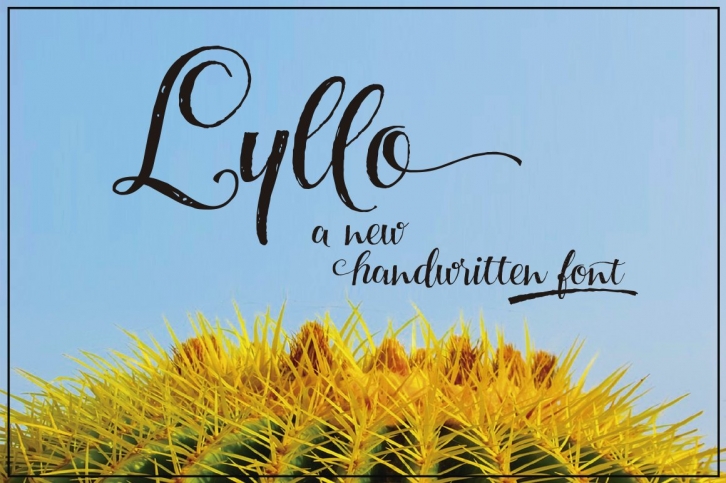
Lyllo Font Download
Design: Carine de Wandeleer
Hello! Meet Lyllo, a casual script with a huge personality and a bouncy baseline. Each glyph was drawn by hand with a calligraphy pen for later, to be digitized with great precision, carefully guarding the authentic look. It is perfect if you want to convey individuality and style. Lyllo has 745 glyphs: a lot of ligatures that help to sustain the natural flow of handwriting, swashes, finishes, initial shapes and a lot of alternatives for a realistic look with handwriting and for you to give a personalized flare to your designs. Lyllo also offers many catchwords and adornments that complement the charm and uniqueness of the font. To activate the optional glyphs you may click on buttons in any OpenType savvy program or manually choose the characters from Glyph Palette. This lovely font has already an extended character set to support Central and Eastern as well as Western European languages. Lyllo is a perfect choice for greeting cards, posters, labels, t-shirt design, logos, and more. Lyllo was made to make your project more beautiful and attractive! Have fun with it! Enjoy it!